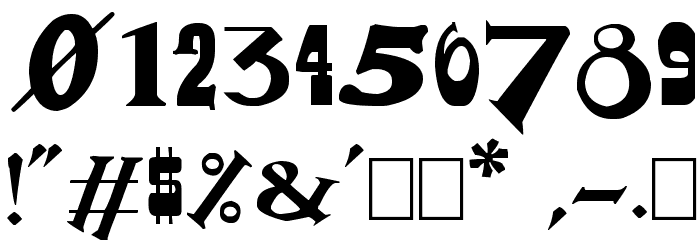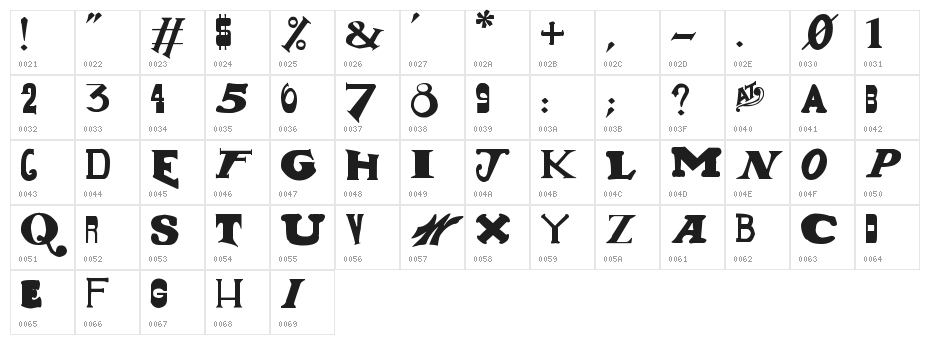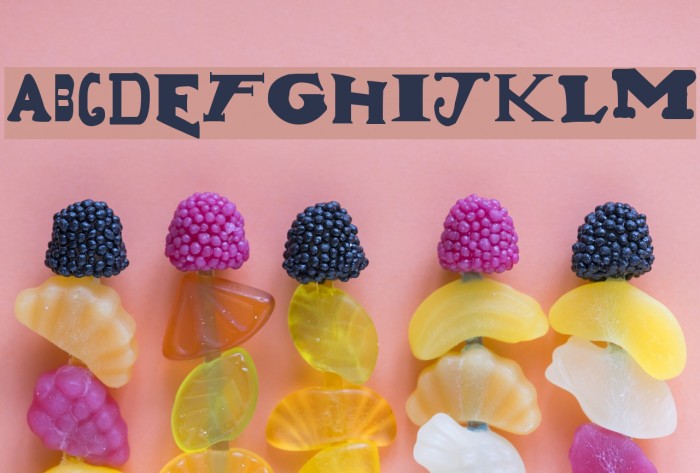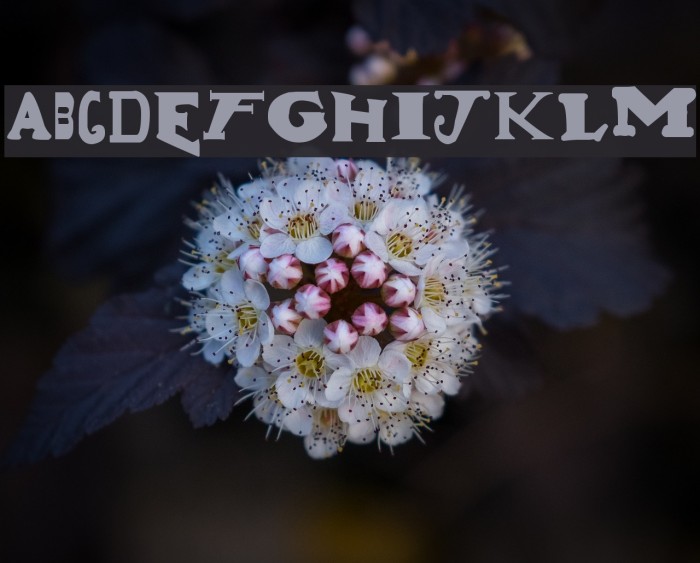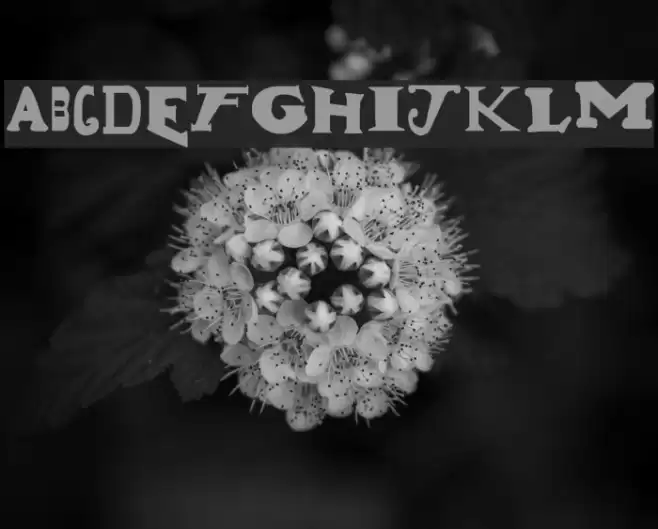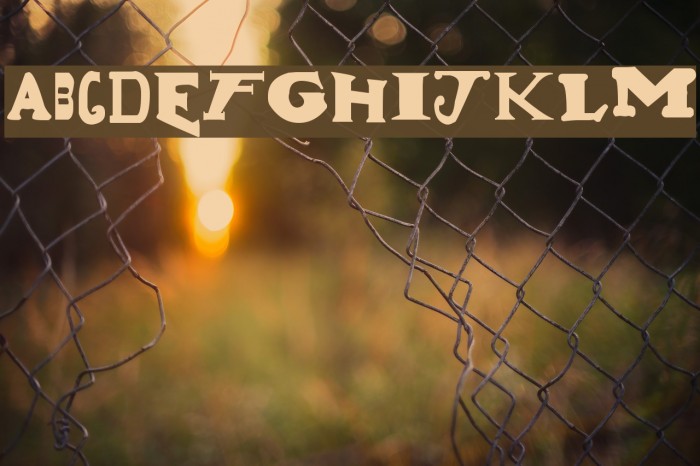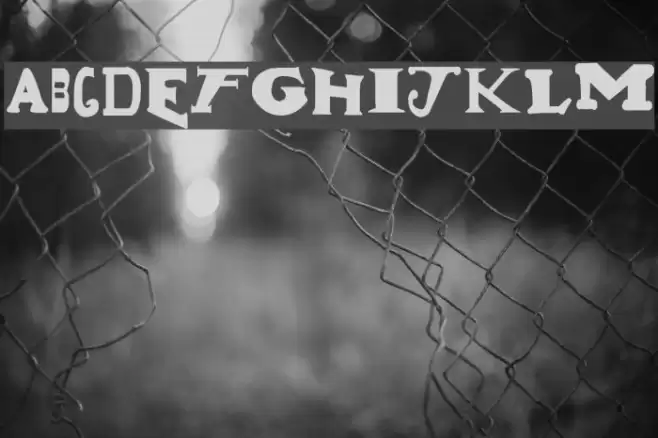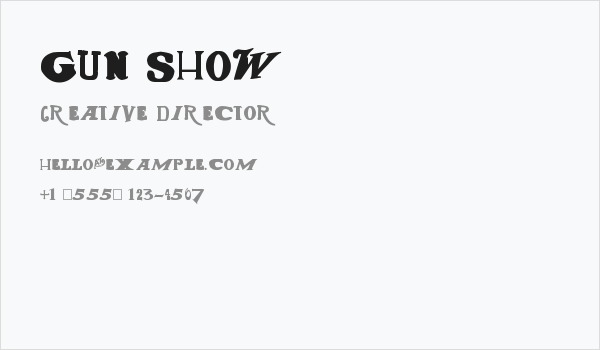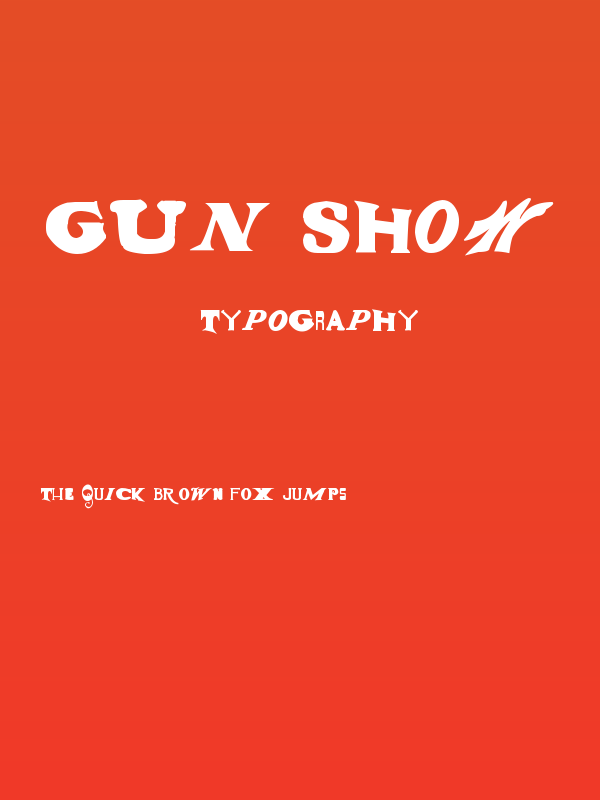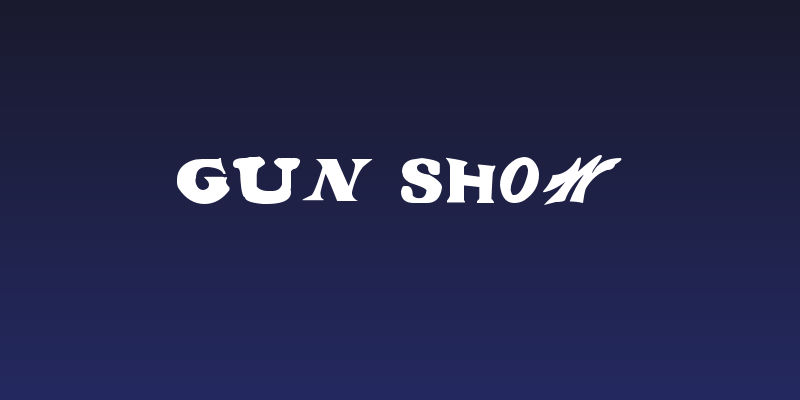
Gun Show Font
Gun Show Description
This font features a bold and eclectic design, characterized by its dramatic and varied letterforms. Each character exhibits unique stylistic elements, such as sharp angles, curves, and decorative flourishes, creating a dynamic and eye-catching appearance. The uppercase and lowercase letters maintain a consistent boldness, while numbers and special characters integrate seamlessly with the overall aesthetic. The font's playful and unconventional style makes it suitable for projects that require a strong visual impact.
| Proposed Projects | Ideal for posters, album covers, event flyers, and branding that requires a strong visual statement. |